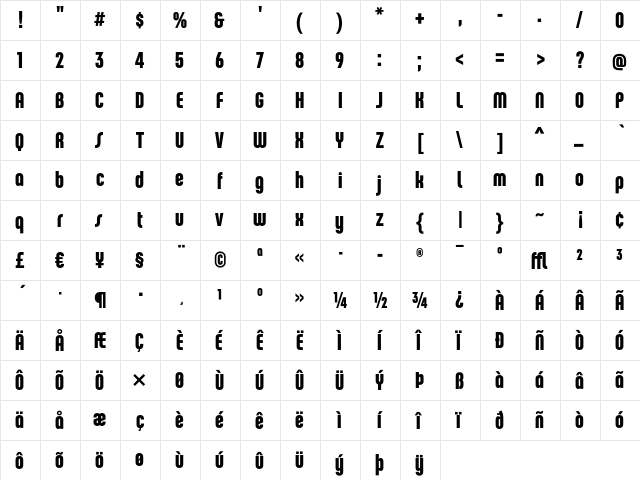
ChaletComprime HongKongSeventy
| Designer | Paul van der Laan/House Industries |
Design Context for ChaletComprime Typeface
ChaletComprime takes a measured approach to typography — its balanced proportions and neutral character make it a reliable workhorse for both digital and print work.